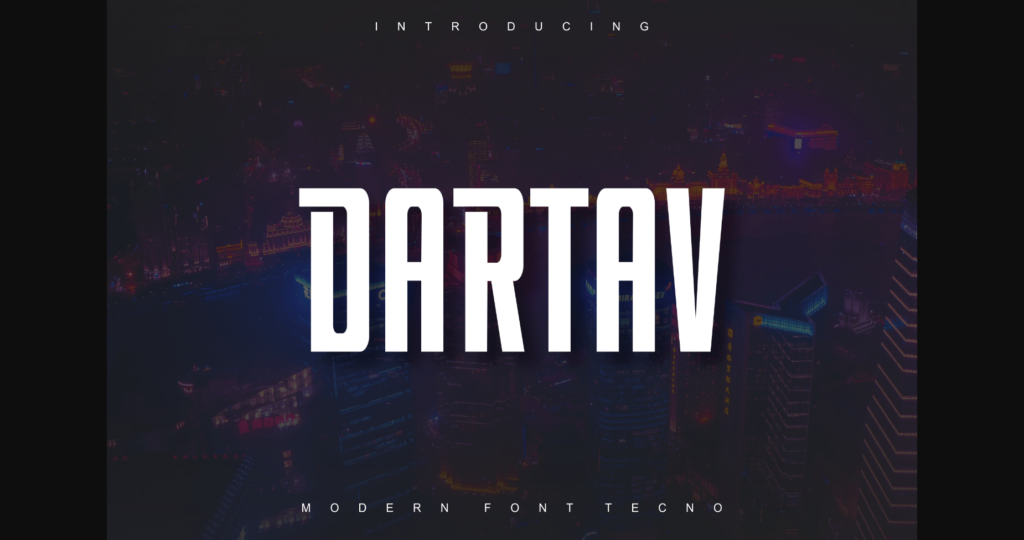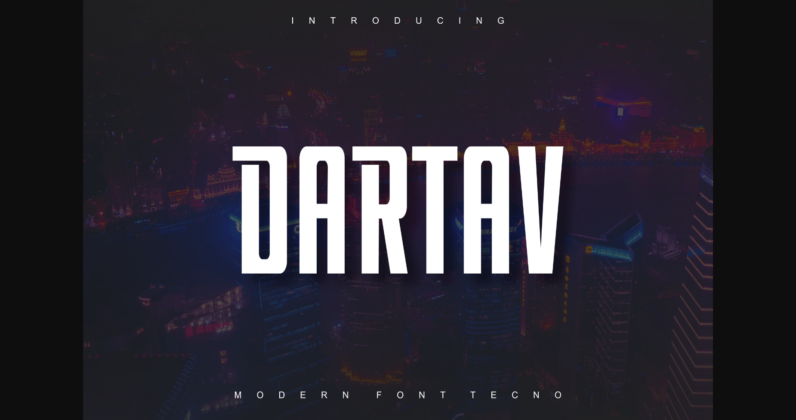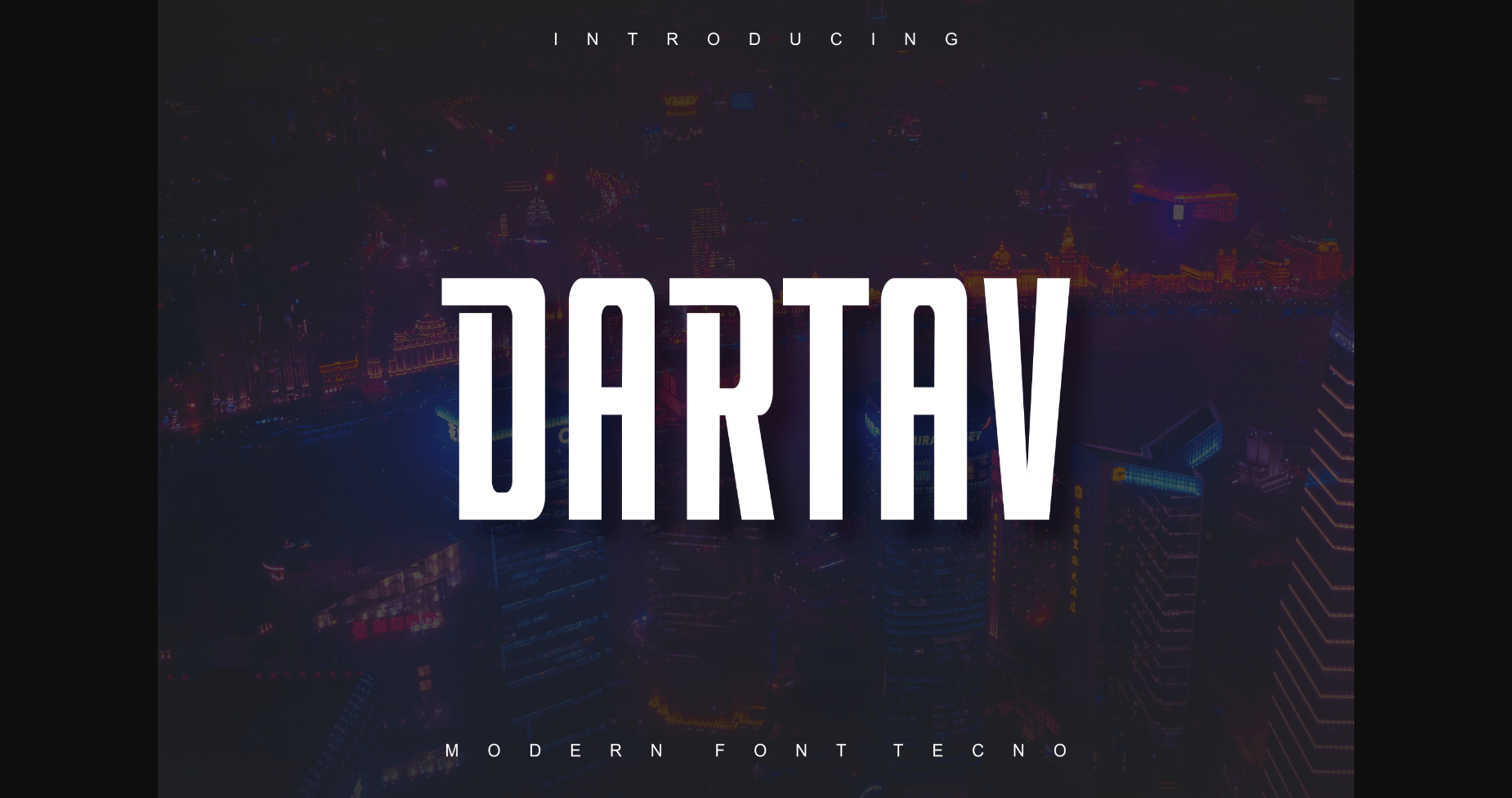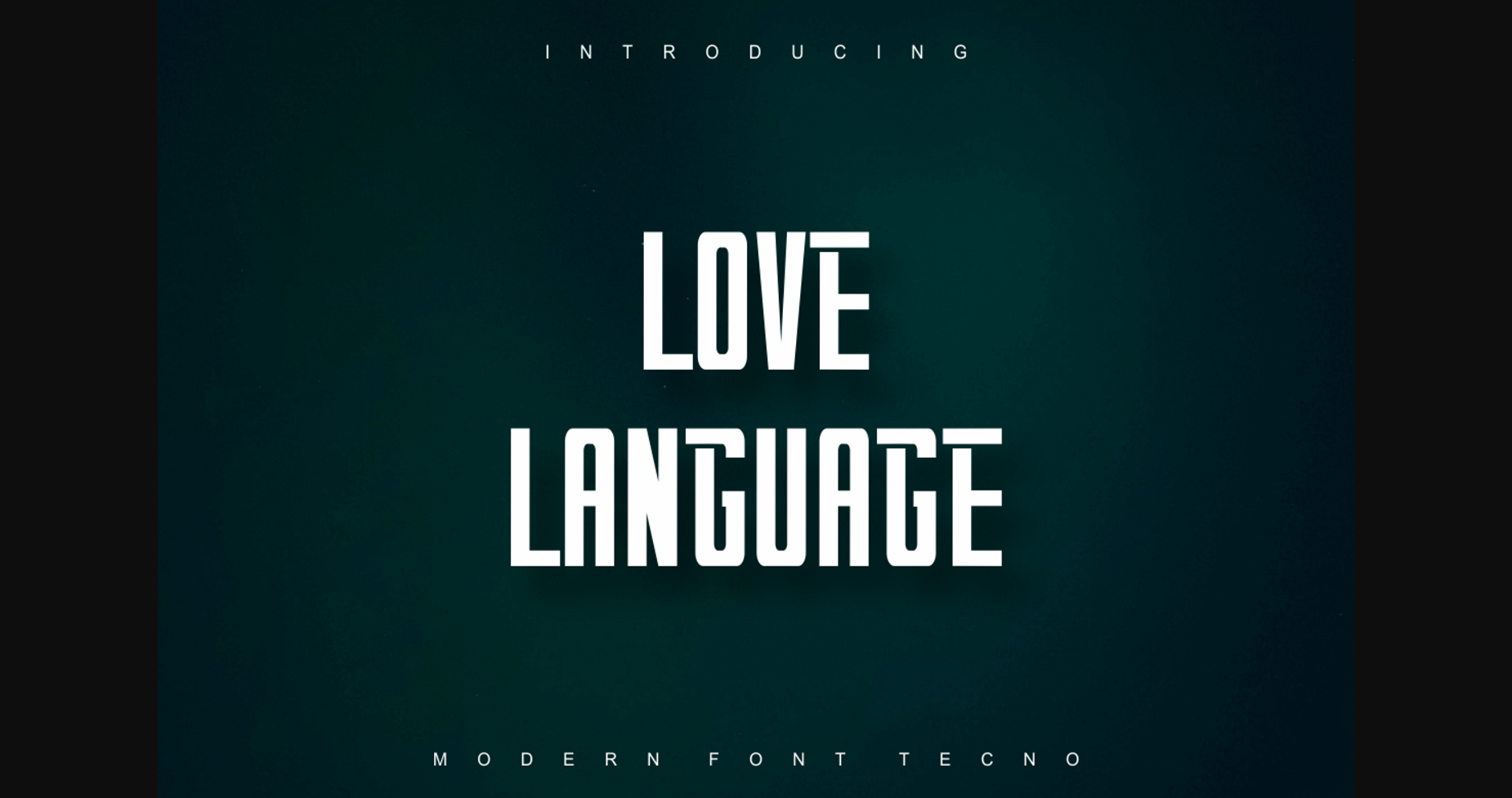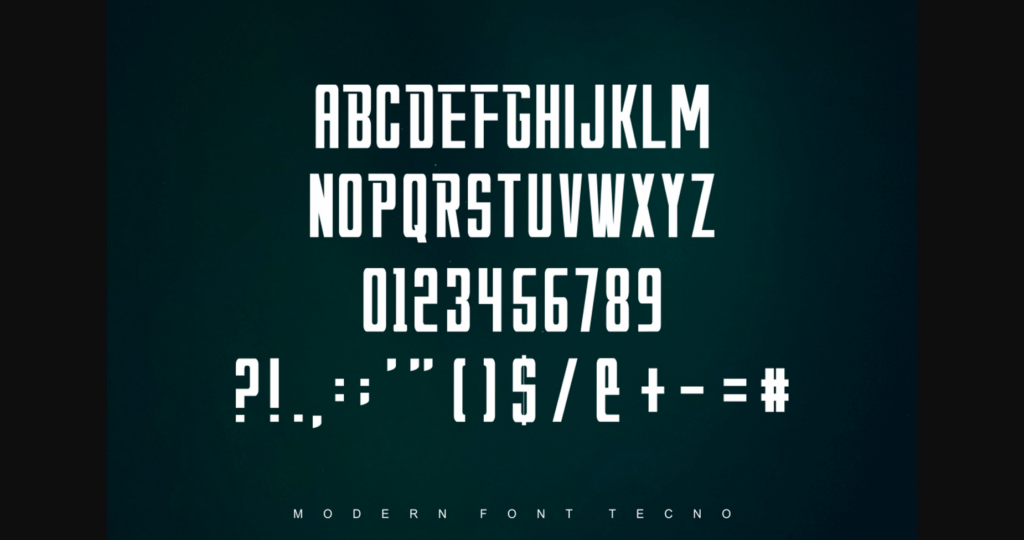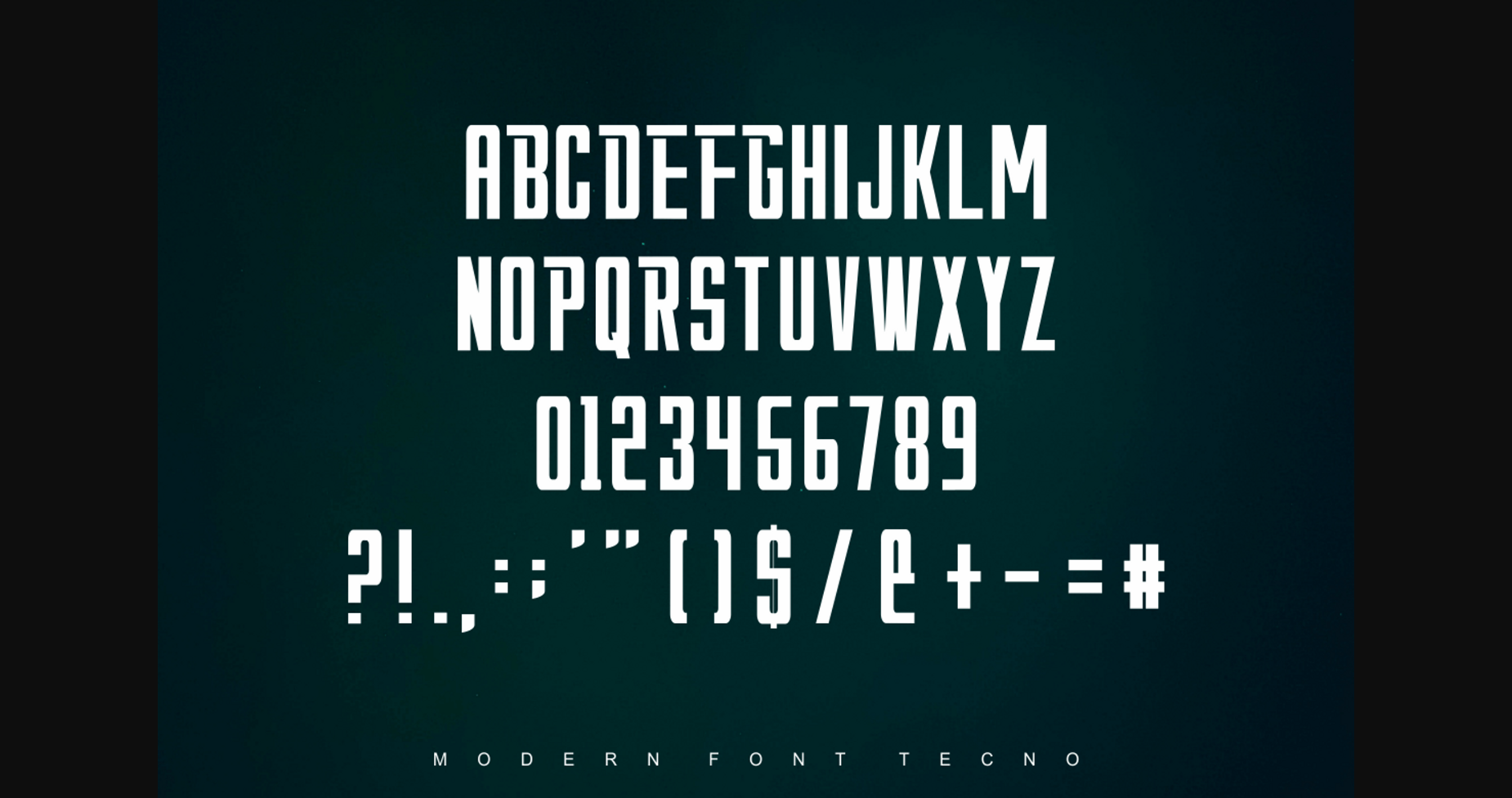
Dartav is a bold and authentic sans serif font suitable for any branding project like logo, t-shirt printing, export, and many more. It looks outstanding in a wide range of contexts.